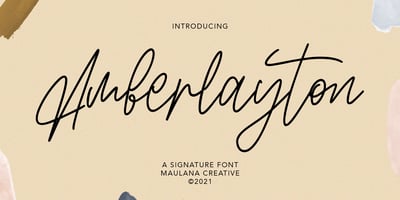
Amberlayton
Amberlayton font
Amberlayton Font Family was designed by Gilang Maulana and published by Maulana Creative. Amberlayton contains 1 styles and family package options. Amberlayton Signature Font, with monoline stroke, condensed and fun characters. It has Opentype features of ligatures, makes it a perfect choice for branding and digital designs. Use this font for logos, social media, websites, blogs, instagram, social media, business cards, branding, and more! Amberlayton font support multilingual more than 100+ language. and good pair for your secondary text font with sans or serif. Make a stunning work with Amberlayton signature font. Cheers, MaulanaCreative